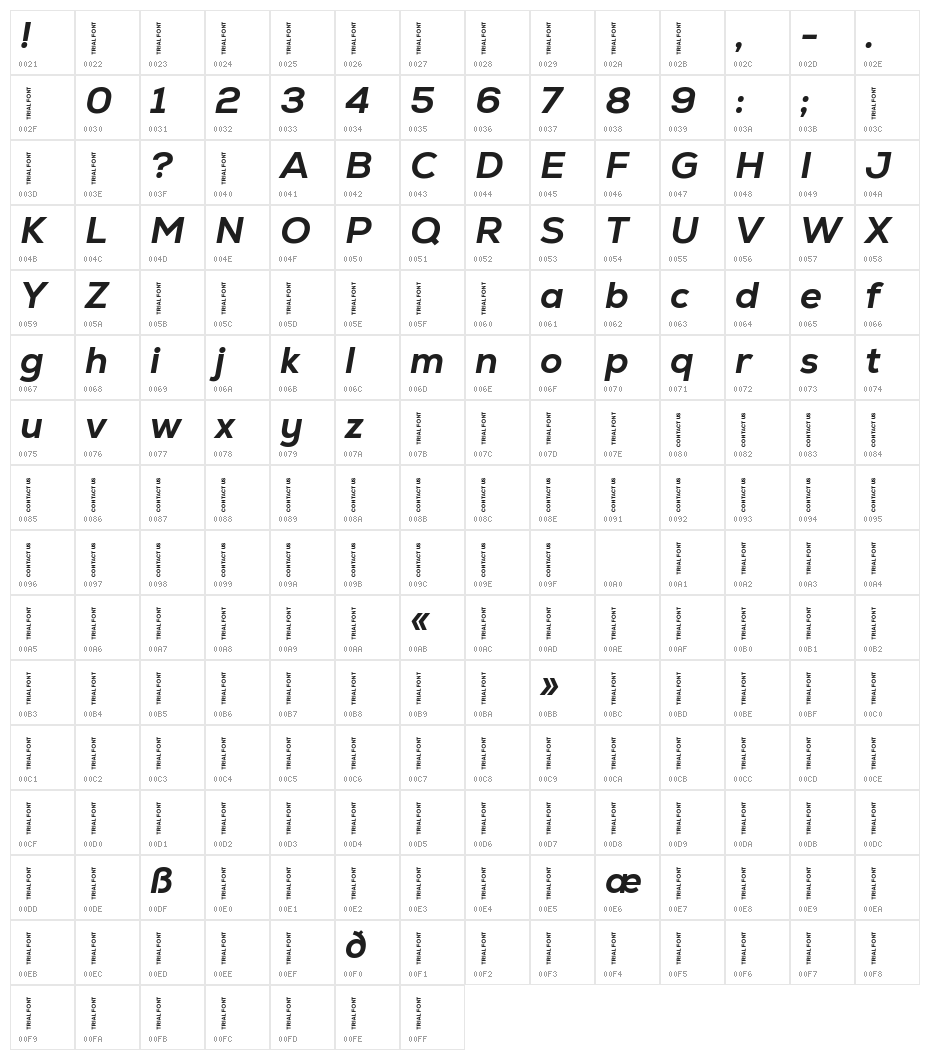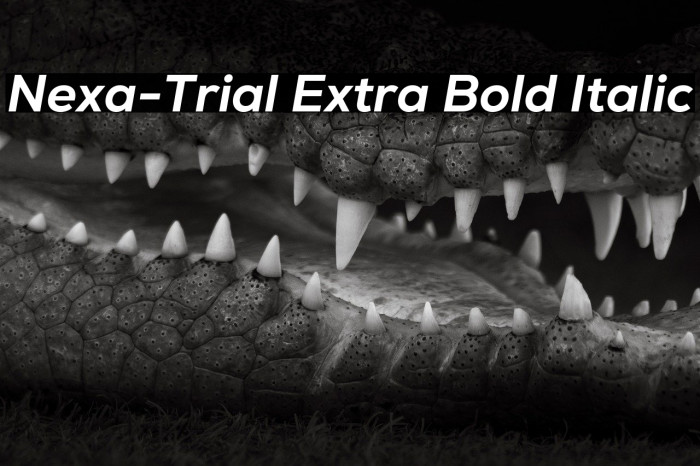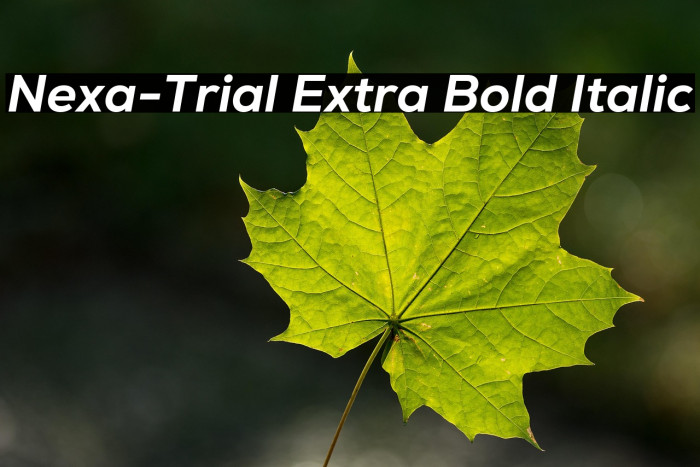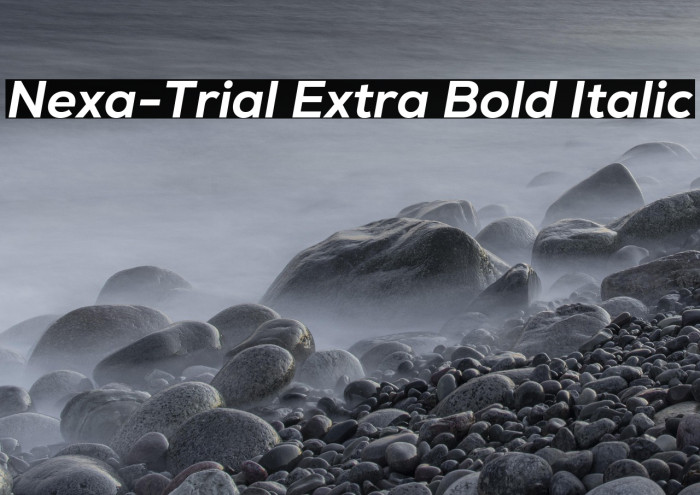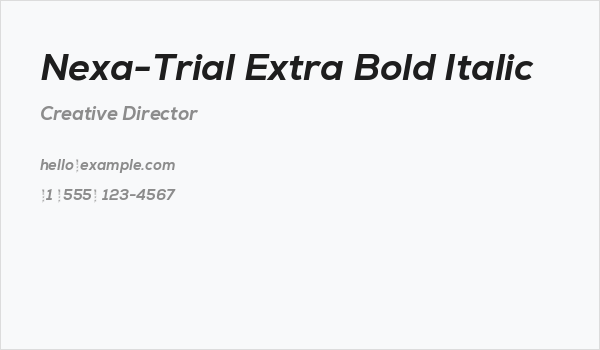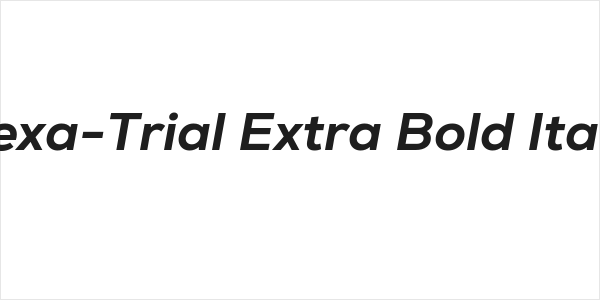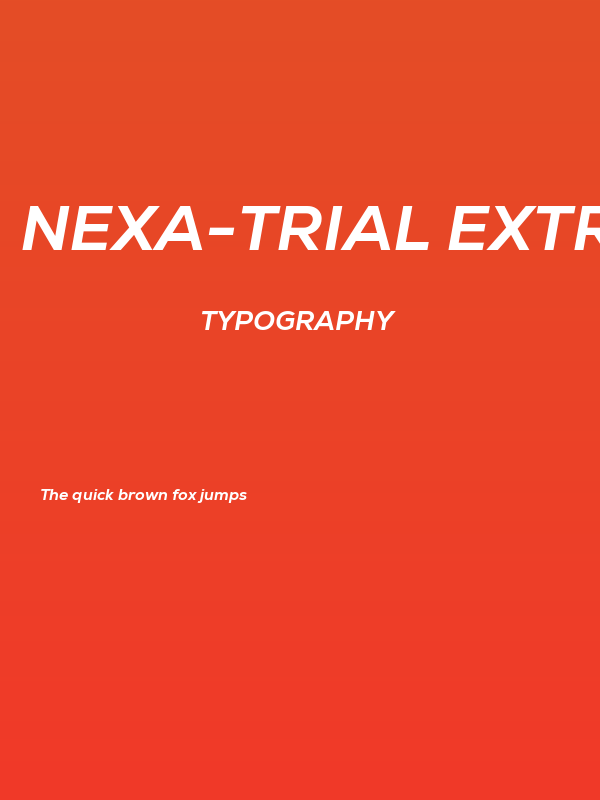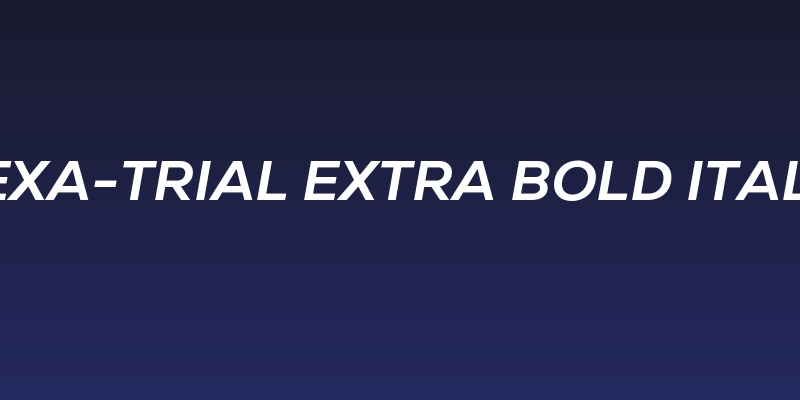
Nexa-Trial Extra Bold Italic Font
Nexa-Trial Extra Bold Italic Description
This font features a modern and sleek design with a strong emphasis on boldness and slanted italic style. The characters are well-defined with smooth curves and clean lines, providing a contemporary look. The uppercase and lowercase letters maintain a consistent style, while the numerals are clear and easy to read. Special characters are included, matching the overall aesthetic. The font's bold weight and italic slant make it suitable for attention-grabbing headlines and impactful designs.
| Proposed Projects | Ideal for branding, advertising, headlines, and modern web design projects. |